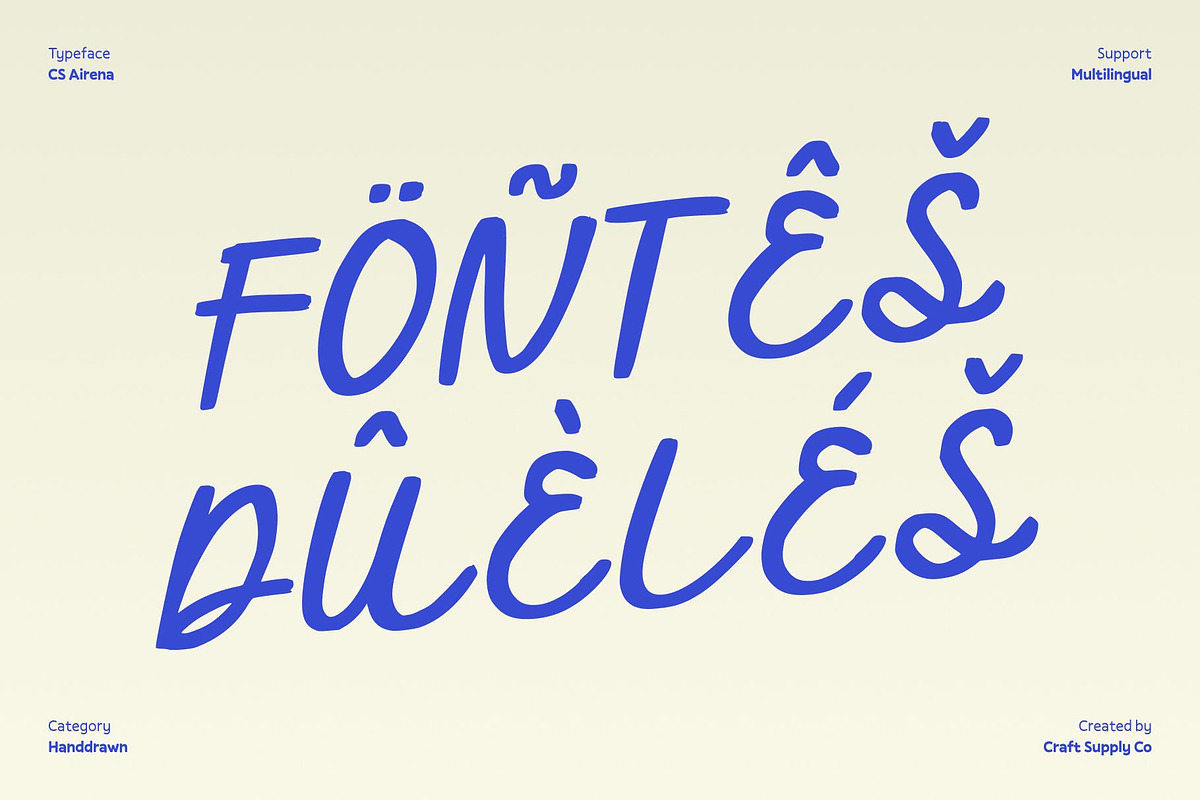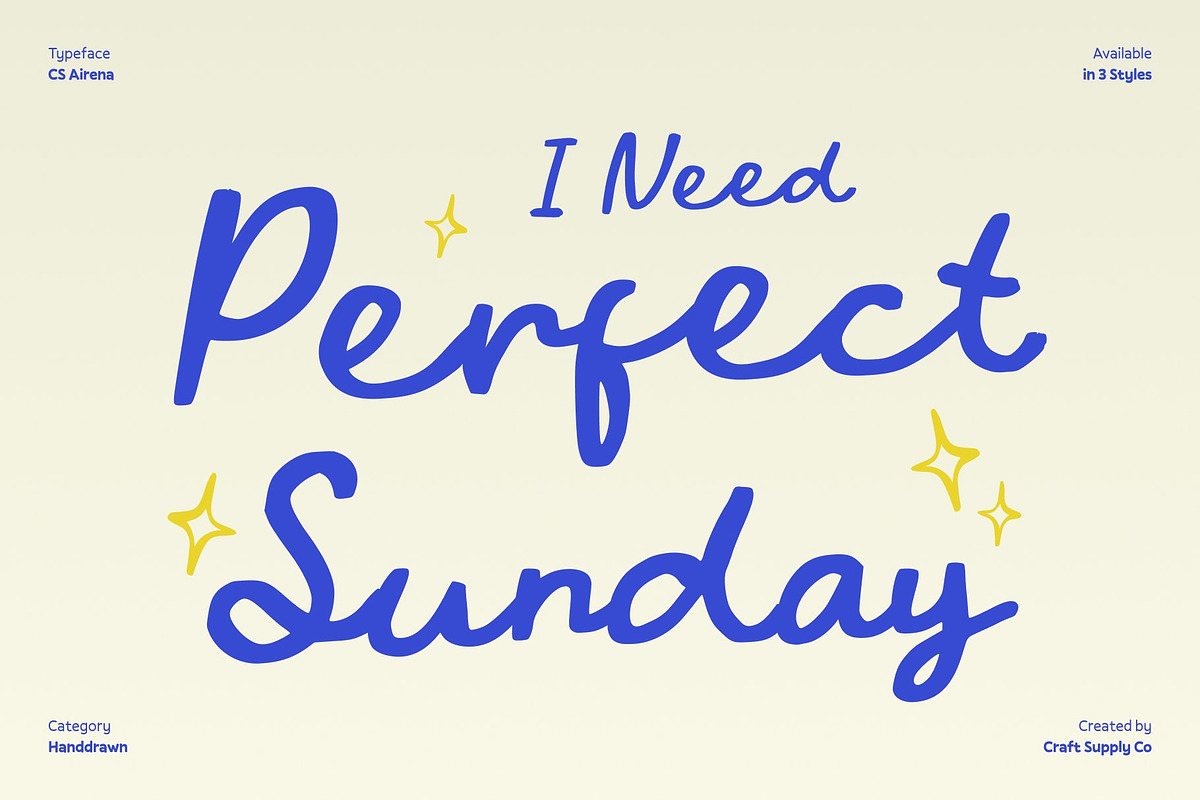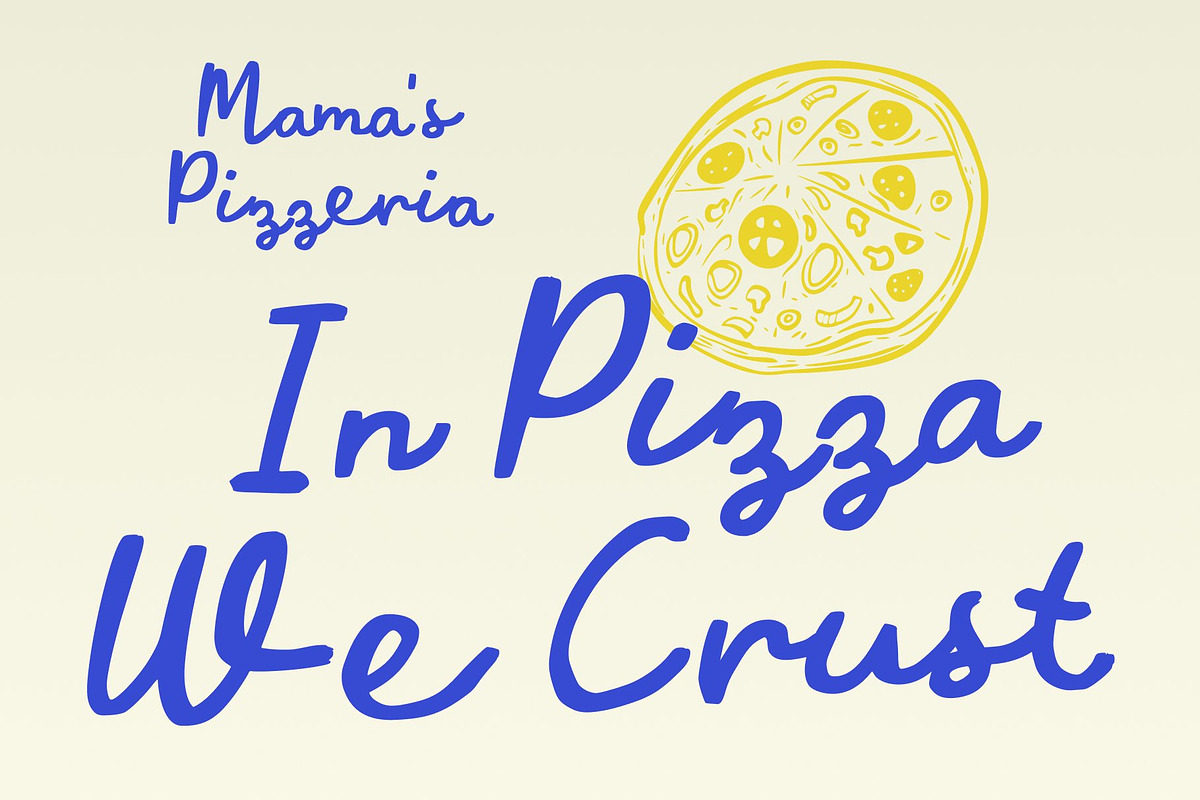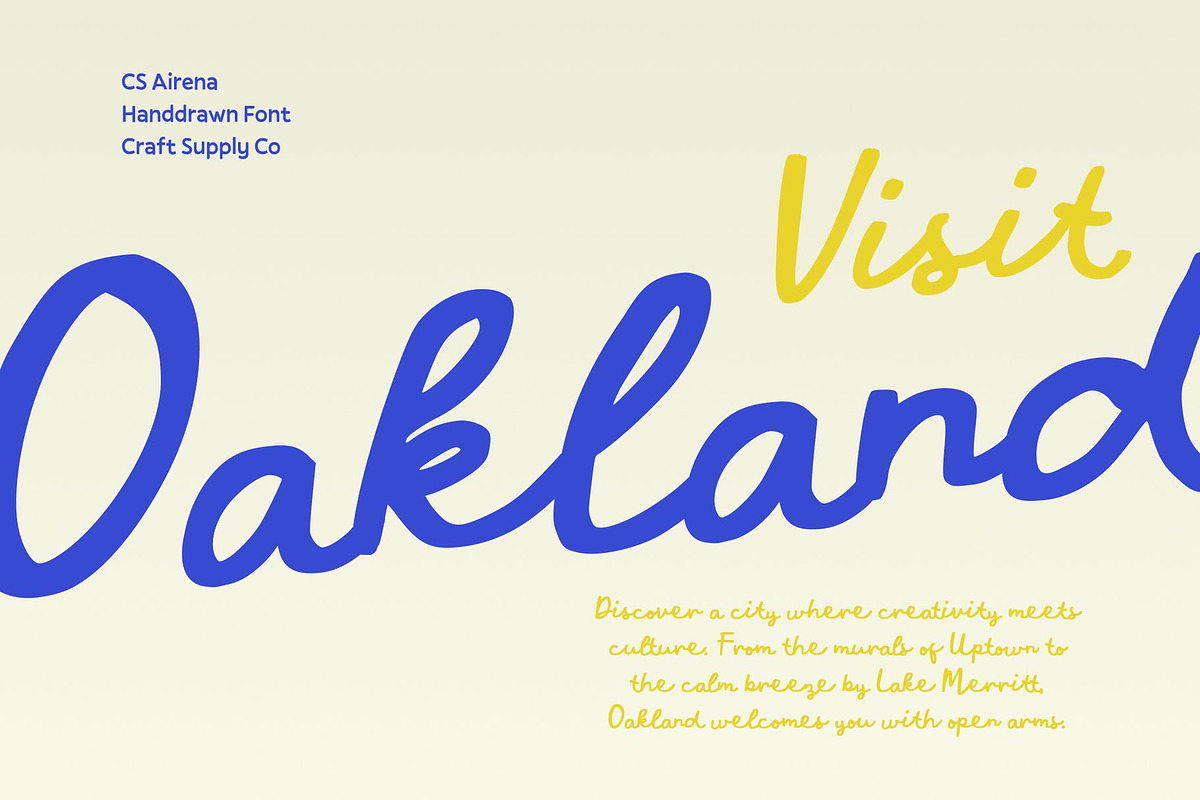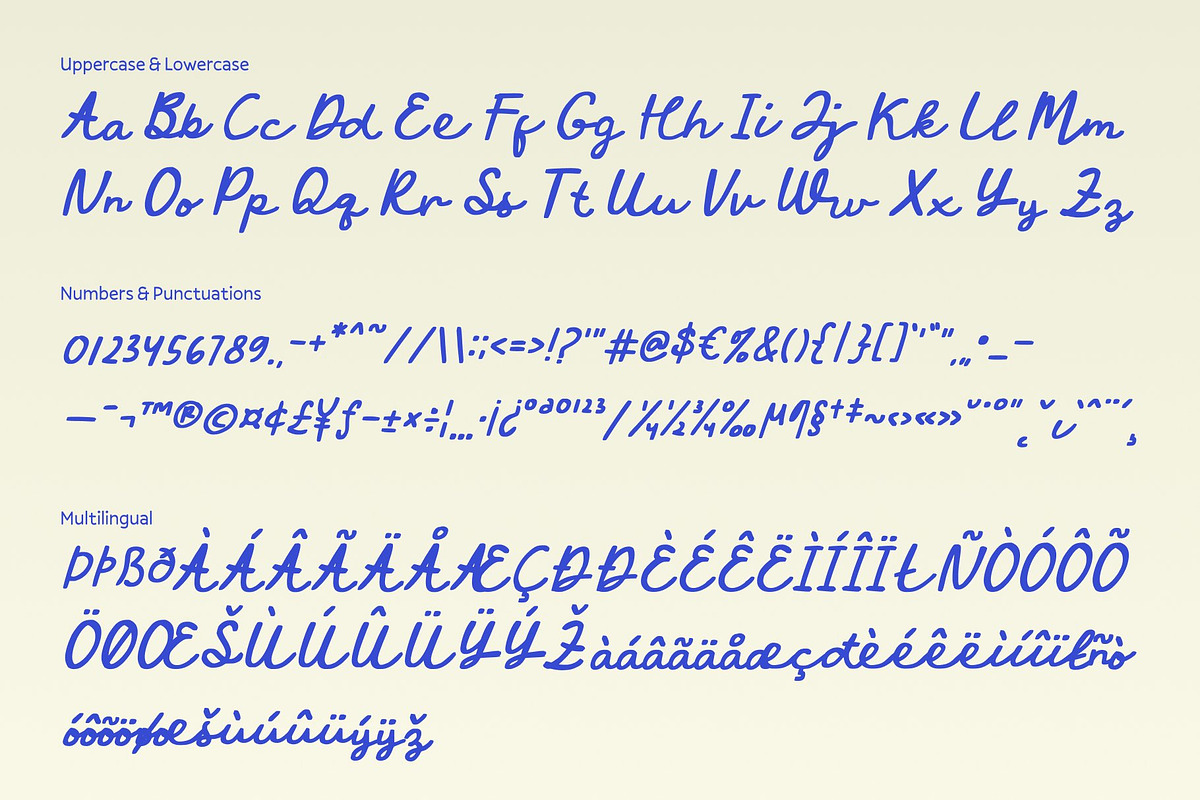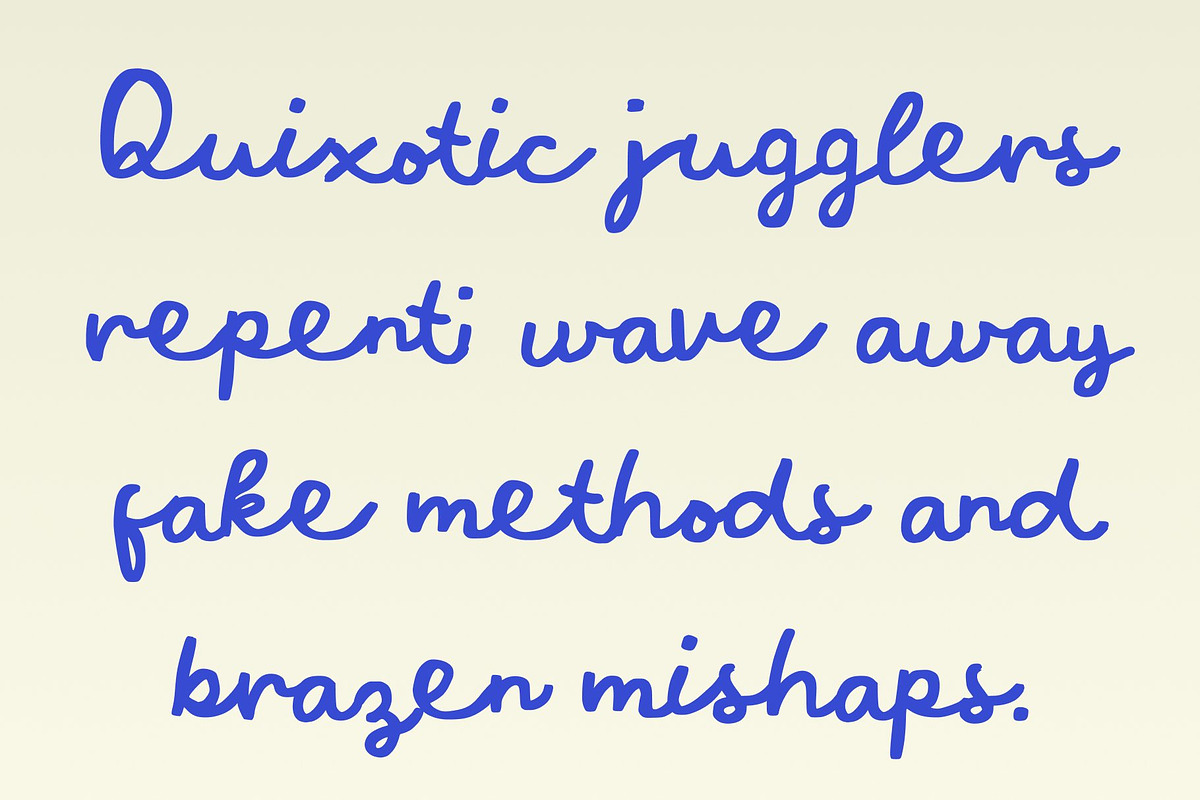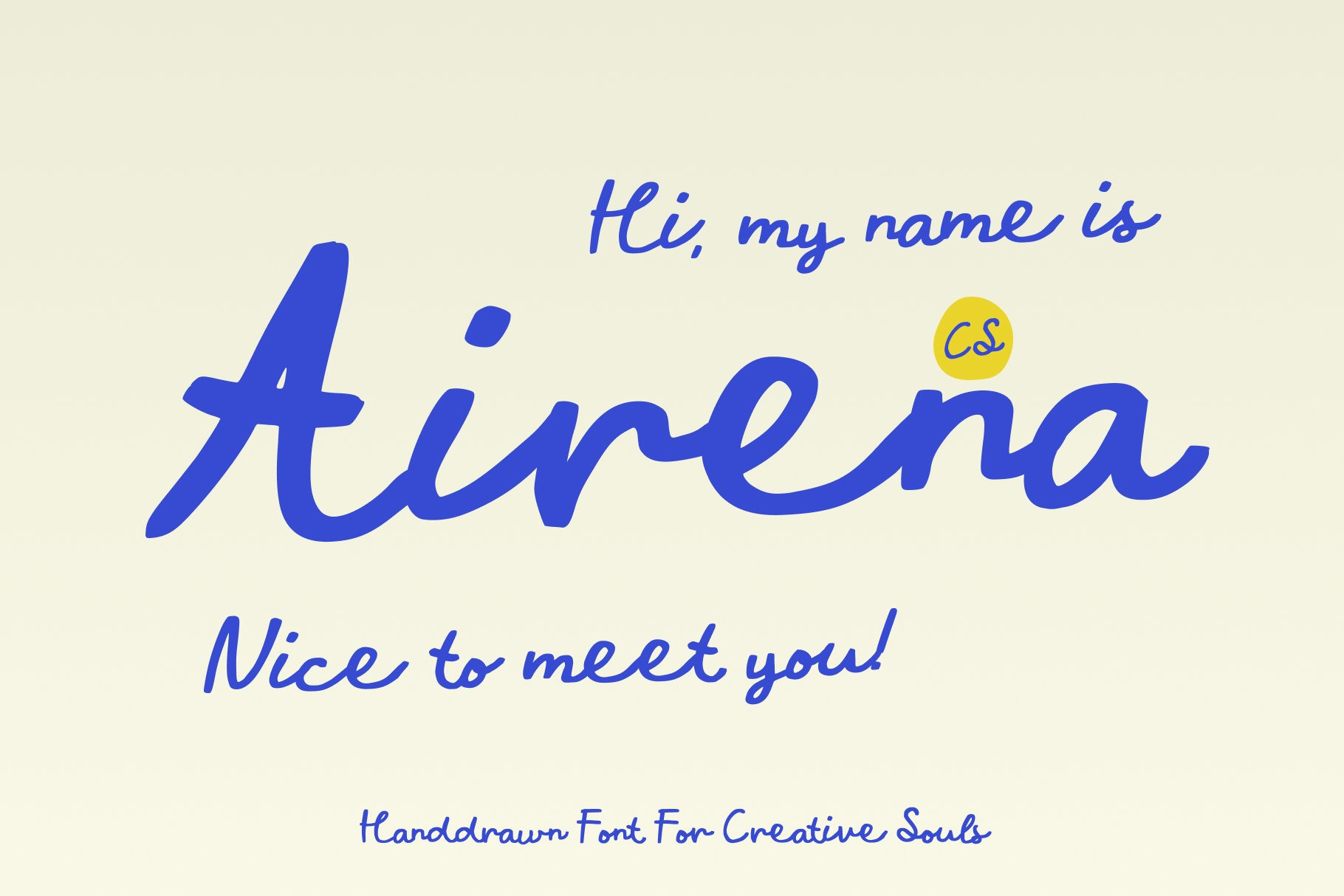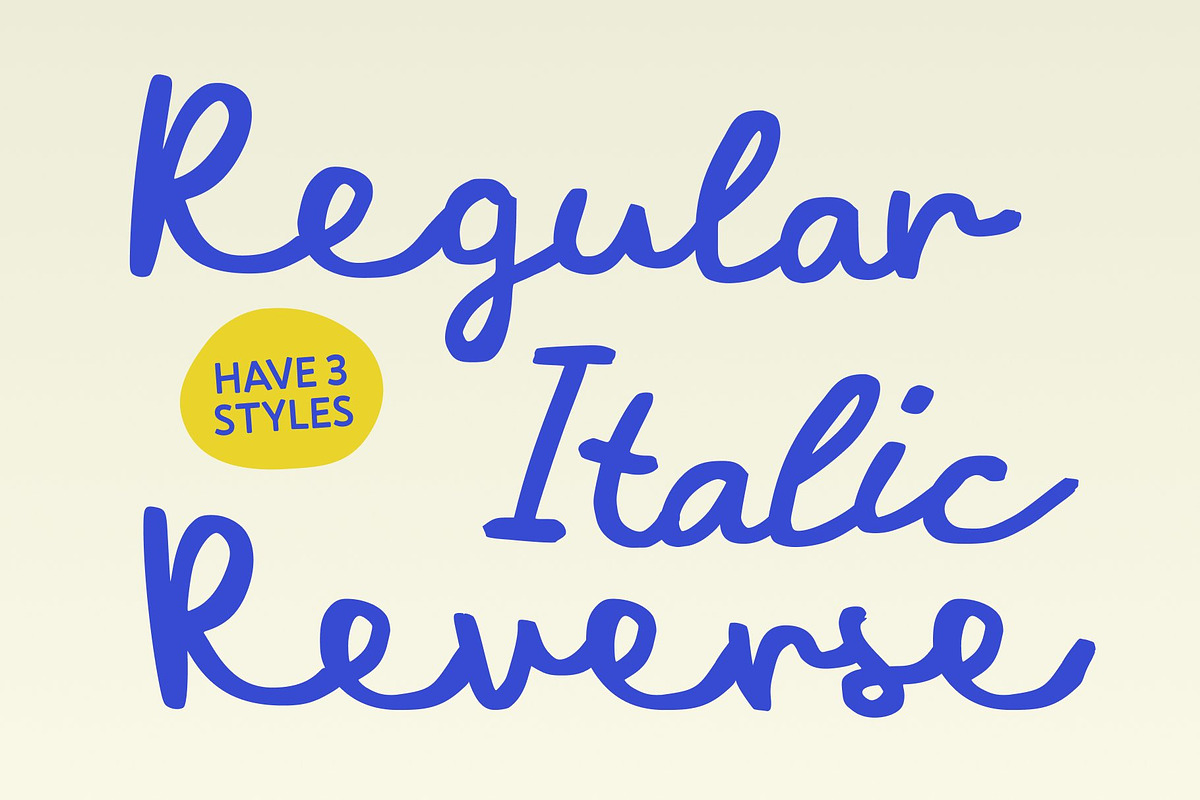
CS Airena – Handwritten Script Font
CS Airena – Romantic Script Font with Mediterranean Elegance
Graceful Strokes with Timeless Script Beauty This font is a romantic and stylish script font that captures the gentle flow and charm of Mediterranean-inspired handwriting. Its smooth, sweeping curves bring an elegant rhythm to every letter, creating a sense of warmth, sophistication, and effortless beauty. Designed to look both refined and organic, This font adds a luxurious handwritten touch to any creative project.
Mediterranean Flair for Distinctive Style Infused with the essence of coastal elegance and sunlit romance, this font carries a soft Mediterranean character that sets it apart from ordinary script fonts. Its graceful loops and naturally flowing forms evoke feelings of serenity and refinement, making it an ideal choice for projects that require a sophisticated, emotional, and memorable typography style.
Perfect for Branding and Luxury Packaging This font excels in creating upscale brand identities and refined packaging designs. Its stylish curves convey exclusivity and high-end appeal, making it perfect for fashion labels, beauty products, artisan goods, and bespoke branding concepts. Whether used in logos, taglines, or product labels, this script font enhances visual storytelling with its graceful charm.
Ideal for Wedding Invitations and Elegant Print Designs With its romantic flair and beautifully fluid letters, this font is a natural fit for wedding invitations, event stationery, and celebratory designs. It adds a soft, intimate touch to announcements, greeting cards, and decorative layouts.
- CS Airena Regular
- CS Airena Italic
- CS Airena Reverse Italic